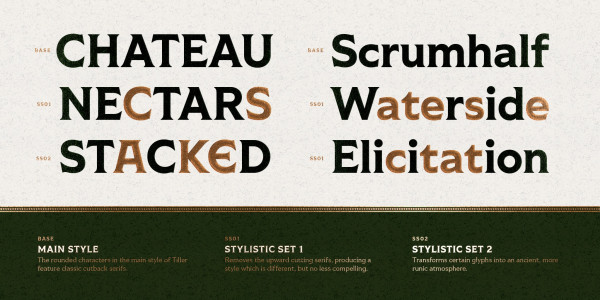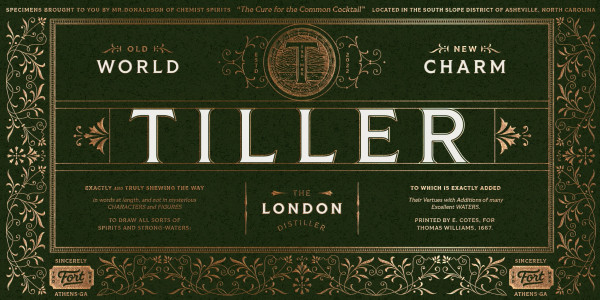
Tiller Font Family
Tiller Font Family, Inspired by geometric shapes, Romanesque typography, and an undying love for 19th century ephemera, Tiller balances its forms with flare and function. Taking a step away from Shackleton’s more ornate tendencies, this family takes a more workhorse approach with 5 weights from Regular to Heavy with both Roman and Italic styles. Tiller speaks more than 200 languages and is packed full of features like stylistic alternates, case sensitive punctuation, and more.